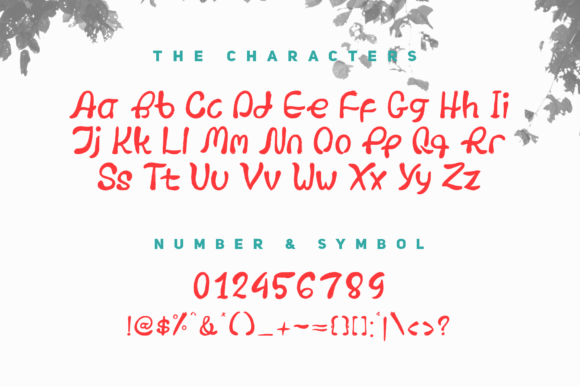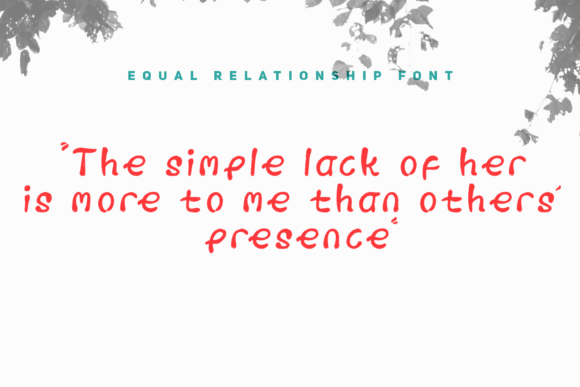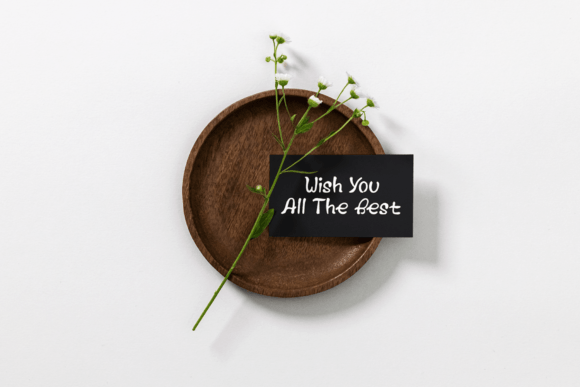
Introducing Equal Relationship Font: The Perfect Addition to Your Design Arsenal
Are you tired of using the same old fonts in your designs? Look no further! Equal Relationship Font is a fun and friendly handwritten font that’s sure to take your creations to the next level. With its unique charm and versatility, this font is perfect for designers and crafters looking to add a personal touch to their work.
The Story Behind Equal Relationship Font
Equal Relationship Font is a carefully crafted handwritten font that’s designed to bring a sense of warmth and personality to your designs. Its creator had a vision of developing a font that would be both fun and elegant, making it suitable for a wide range of projects, from social media graphics to branding materials, and even craft projects.
What Makes Equal Relationship Font So Special?
So, what sets Equal Relationship Font apart from other fonts out there? Here are just a few of its standout features:
- Unique Character: Equal Relationship Font has a distinct, handwritten feel that’s full of character. Its irregularities and quirks give it a personal touch that’s hard to replicate with more traditional fonts.
- Versatility: Whether you’re working on a formal or informal project, Equal Relationship Font is up to the task. Its friendly, approachable vibe makes it perfect for designs that need to connect with the audience on a more personal level.
- Legibility: Despite its handwritten nature, Equal Relationship Font is remarkably legible, even at smaller sizes. This makes it ideal for use in a variety of applications, from body text to headings.
How to Use Equal Relationship Font in Your Designs
Ready to get started with Equal Relationship Font? Here are a few ideas to get you inspired:
- Social Media Graphics: Use Equal Relationship Font to create eye-catching social media graphics that stand out in crowded feeds. Its friendly vibe is perfect for engaging with your audience.
- Branding Materials: Add a personal touch to your branding materials, such as business cards, brochures, and letterheads, with Equal Relationship Font. Its unique character will help your brand stand out.
- Craft Projects: If you’re a crafter, Equal Relationship Font is a great addition to your design toolkit. Use it to create custom titles, labels, and other embellishments for your projects.
Tips for Getting the Most Out of Equal Relationship Font
To really make Equal Relationship Font shine in your designs, keep the following tips in mind:
- Experiment with Colors: Equal Relationship Font looks great in a variety of colors, so don’t be afraid to experiment. Try pairing it with bold, bright hues for a fun and playful look.
- Mix and Match: Combine Equal Relationship Font with other fonts to create interesting contrast and visual interest. Its handwritten nature pairs well with both serif and sans-serif fonts.
- Play with Size: Don’t be afraid to vary the size of Equal Relationship Font in your designs. Using different sizes can help create hierarchy and add visual interest.
| Author | Senekaligrafi Font |
Equal Relationship Font is a fun, friendly, and versatile handwritten font that’s perfect for designers and crafters looking to add a personal touch to their work. With its unique character, legibility, and versatility, it’s an excellent addition to any design arsenal. So why not give it a try? Download Equal Relationship Font today and see how it can help take your designs to the next level!